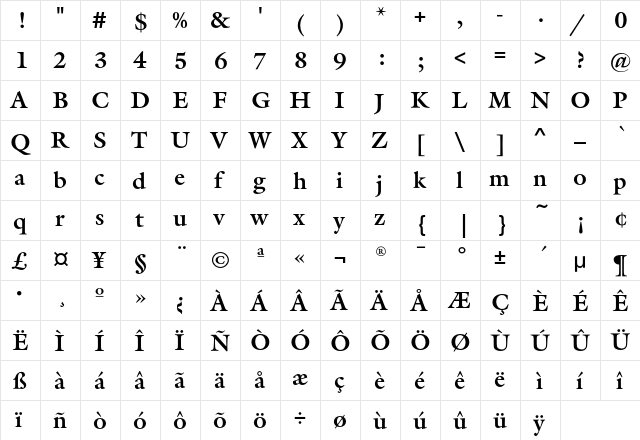
GalliardEF-Bold Regular Font Preview
GalliardEF-Bold Regular
GalliardEF-Bold Regular Font Details
Design Context for GalliardEF-Bold Typeface
GalliardEF-Bold offers clean, dependable letterforms without strong stylistic allegiance, making it a practical choice for designers who need flexibility. Its bold stroke weight gives it real presence on the page.